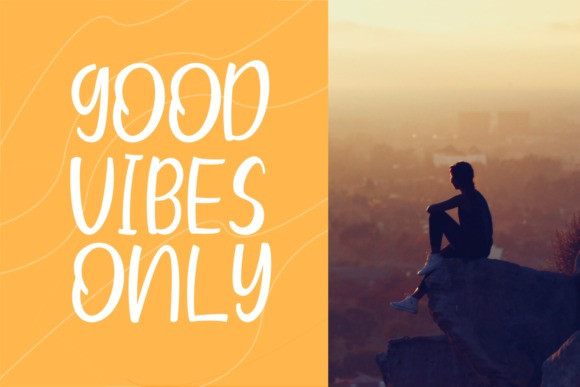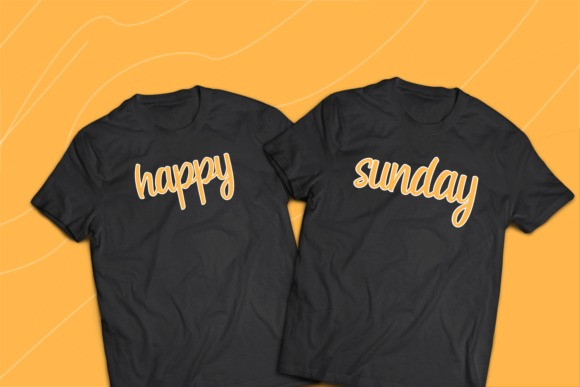
Sontiro Font
Sontiro Script Font is a natural calligraphy font style, it is very fun when you use it for a handwriting design, Sontiro is specifically designed to represent calligraphy handwriting, it is very suitable for various media such as wedding invitations, brochures, cartoons, logos, logos, names brand, product packaging, poster or t-shirt screen printing